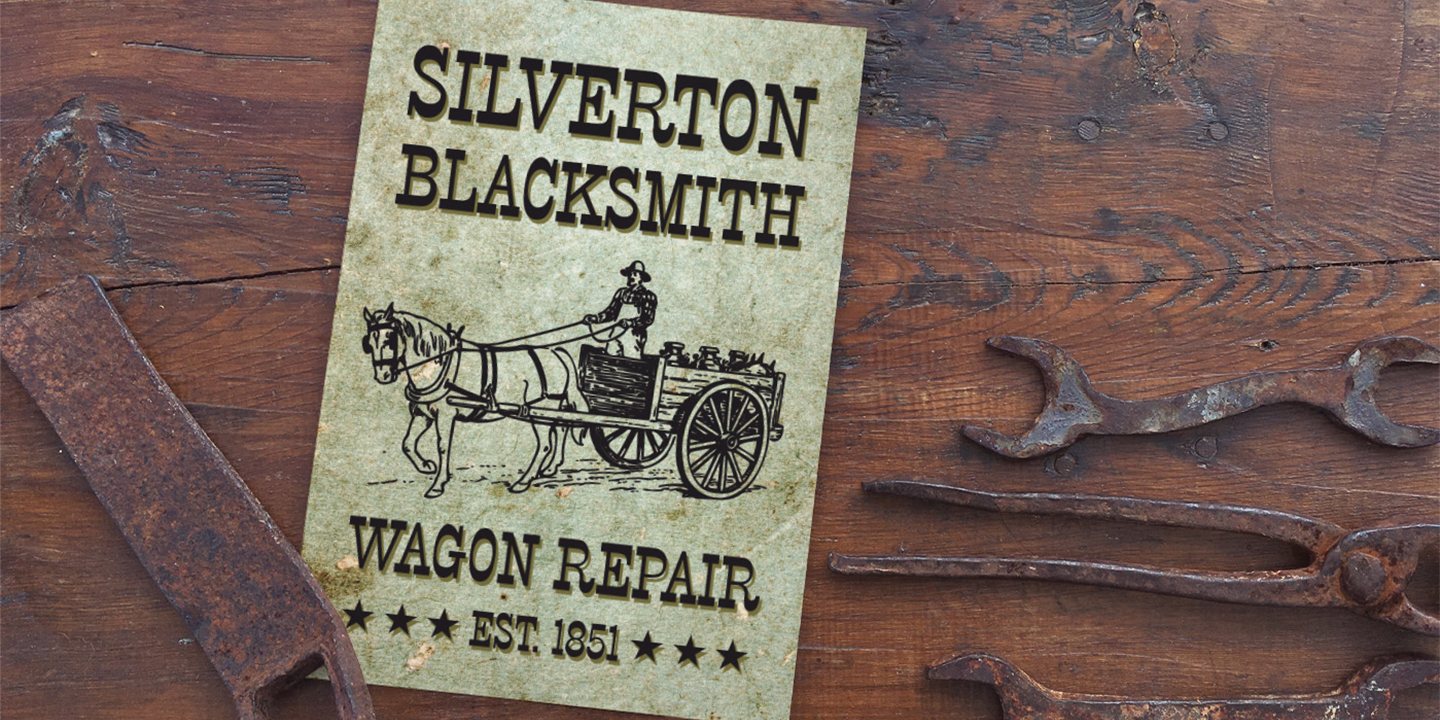
Westside Font is ideal for western movie posters, cowboy-themed restaurants, rodeo event promotions, country music album covers, ranch branding, saloon signage, vintage americana designs, western wear clothing labels, and rustic cabin decorations.
Westside Font is exciting because it captures the rugged spirit of the American frontier with authentic western character, featuring bold letterforms that evoke dusty trails, cowboy culture, and the adventurous essence of the Wild West era.
Westside Font family includes regular, bold, italic, distressed, outline, and shadow variants, offering designers comprehensive options for creating authentic western-themed projects with varying levels of impact and visual texture.
Westside Font Free Download provides designers with an exceptional typeface that brings the authentic spirit of the American West to any creative project. This remarkable font combines frontier heritage with contemporary usability, making it perfect for projects requiring that distinctive cowboy character and rustic charm. The carefully designed letterforms reflect the bold independence and adventurous spirit of western culture while maintaining excellent readability across various applications. Its versatile character set includes special symbols and decorative elements that enhance the overall western aesthetic. Whether you're designing for entertainment, hospitality, or lifestyle brands with western themes, this font delivers genuine frontier appeal with professional quality results. Download this outstanding font today and saddle up your designs with typography that captures the timeless allure of cowboys, ranches, and wide-open spaces.